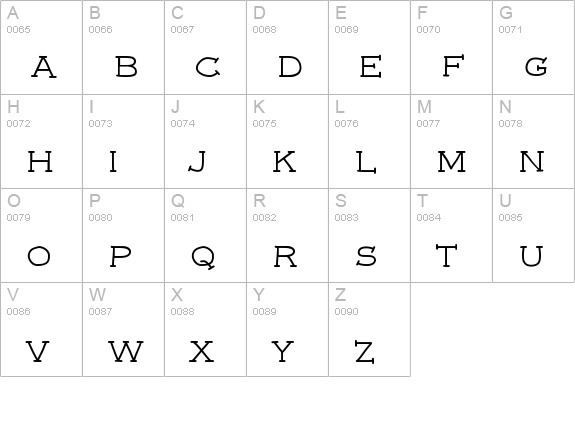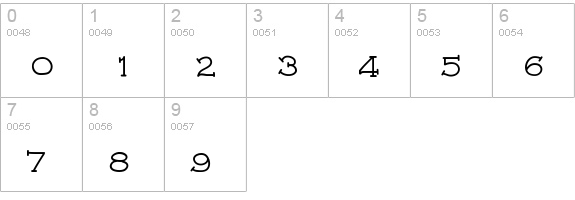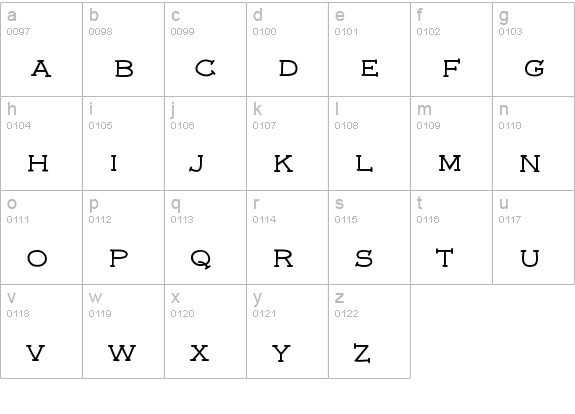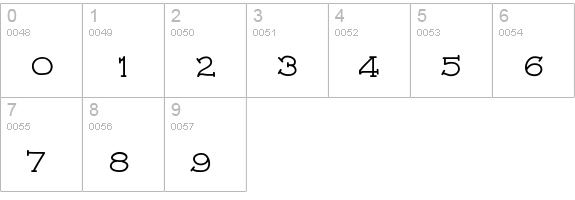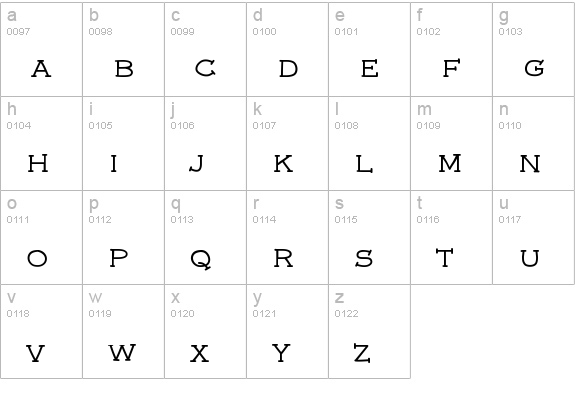
Font5 is a stunningly versatile and visually captivating font that is sure to make a lasting impression. This font exudes an air of sophistication and elegance, making it perfect for a wide range of design projects. Whether you're creating a logo, designing a website, or crafting a beautiful invitation, Font5 will effortlessly elevate your work to new heights. With its unique and eye-catching design, Font5 captures attention and commands the viewer's gaze. Its sleek lines and stylish curves create a sense of modernity and professionalism that is hard to match. This font truly stands out from the crowd, making it the ideal choice for those who want to make a bold statement. What's even better is that Font5 is available for free download at FontsMarket.com. Yes, you heard that right - this incredible font can be yours without spending a dime. FontsMarket.com is a trusted source for high-quality fonts, and they proudly offer Font5 as a free download for anyone who wants to add a touch of elegance to their designs. Whether you're a professional designer or someone who just loves to dabble in creative projects, Font5 is the perfect addition to your font collection. Its versatility and timeless appeal ensure that it will always be in style, no matter the trends or fads that come and go. So why wait? Head over to FontsMarket.com and download Font5 today. Unleash your creativity and let this incredible font take your designs to new levels of excellence. With Font5, the possibilities are endless, and the best part is, it won't cost you a penny.